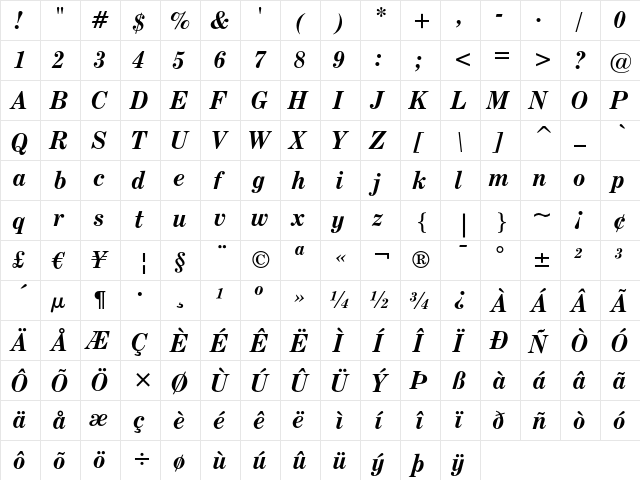
Century Expanded Bold Italic
Design Context for Century Expanded Typeface
Century Expanded offers clean, dependable letterforms without strong stylistic allegiance, making it a practical choice for designers who need flexibility. Its italic angle brings a sense of urgency and motion to the letterforms. Its bold stroke weight gives it real presence on the page.
Pro Tip: Use Century Expanded for emphasis, pull quotes, and subheadings where its slanted energy can add rhythm to the layout.